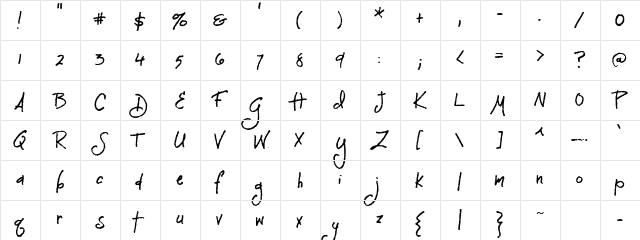
TXT Monique Regular
Design Context for TXT Monique Typeface
TXT Monique is a composed and adaptable typeface that performs quietly and consistently across a wide range of design contexts.